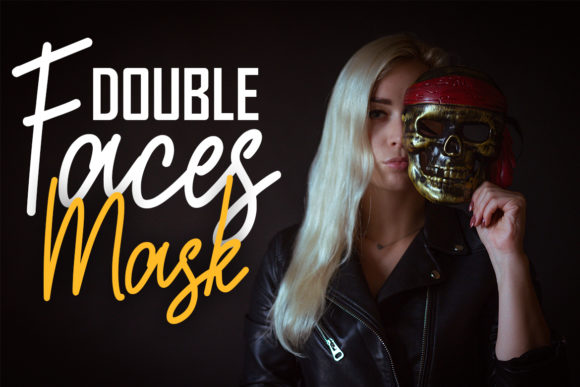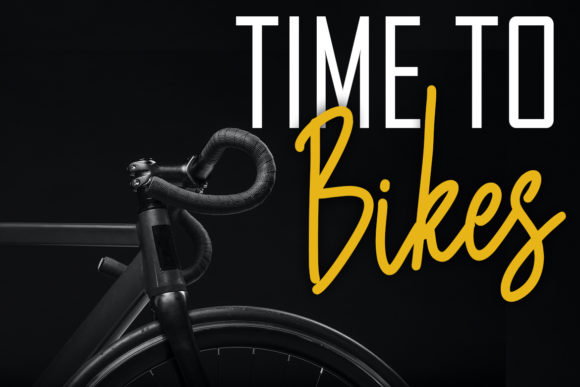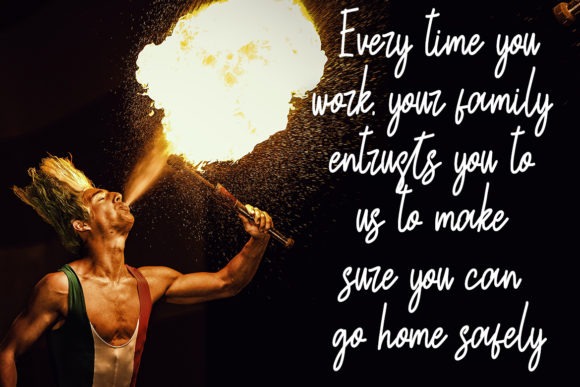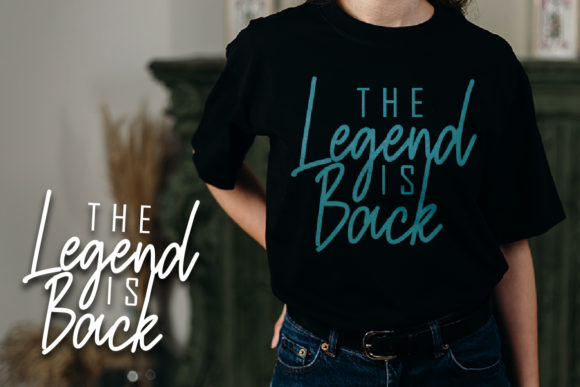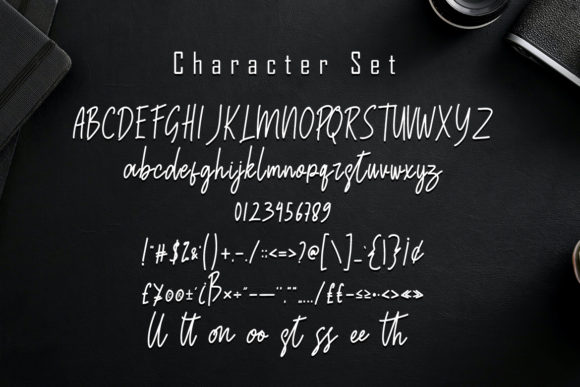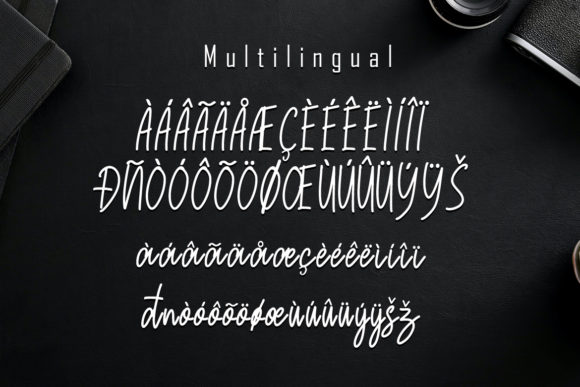
The Quest for the Perfect Handwritten Font: Discovering Calliston
I still remember the time I was working on a wedding invitation project, and my client asked for a font that would make their special day feel truly unique and personal. I scoured the internet, tried out countless fonts, but nothing seemed quite right. That was until I stumbled upon Calliston, a relaxed and flowing handwritten font that instantly captured the warm, intimate feel we were going for. In this article, I’ll share my experience with Calliston, its features, and how you can make the most of it in your designs.
A First Impression: What I Love About Calliston
Calliston has quickly become one of my go-to fonts for projects that require a personal touch. Here’s what I love about it:
• ✨ Beautifully crafted letters: Each letter in Calliston is carefully designed to flow smoothly into the next, creating a beautiful, handwritten look that’s perfect for invitations, quotes, and greeting cards.
• ✅ PUA encoded: Calliston is PUA (Private Use Area) encoded, which means you can access all the glyphs and swashes with ease, giving you plenty of creative freedom.
• 🎨 Versatile: Whether you’re designing wedding invitations, thank you cards, logos, or business cards, Calliston looks stunning and adds a touch of elegance to any project.
No font is perfect, and Calliston has a few quirks to keep in mind:
• 🤔 Some letters may require adjusting: As with any handwritten font, you might need to adjust the spacing or kerning of certain letters to get the perfect look.
• ⚠️ Limited use in very formal designs: While Calliston is versatile, its handwritten nature might not make it the best fit for very formal designs, such as corporate reports or academic papers.
Exploring Alternatives: Similar Fonts to Calliston
The Story Behind Calliston: Designer Inspiration
While the true story behind Calliston’s creation might be unknown, it’s easy to imagine that it was crafted with a passion for beautiful handwriting and a desire to create a font that would bring warmth and personality to any design. Perhaps the designer, inspired by traditional calligraphy, aimed to create a modern, flowing script that would be both elegant and approachable.
What is PUA encoding, and why is it important? PUA (Private Use Area) encoding allows designers to access a wide range of glyphs, swashes, and special characters, making it easier to create unique and creative designs.
Is Calliston suitable for body text? While Calliston is beautiful, its handwritten nature makes it more suitable for headings, titles, and short paragraphs rather than long body text.